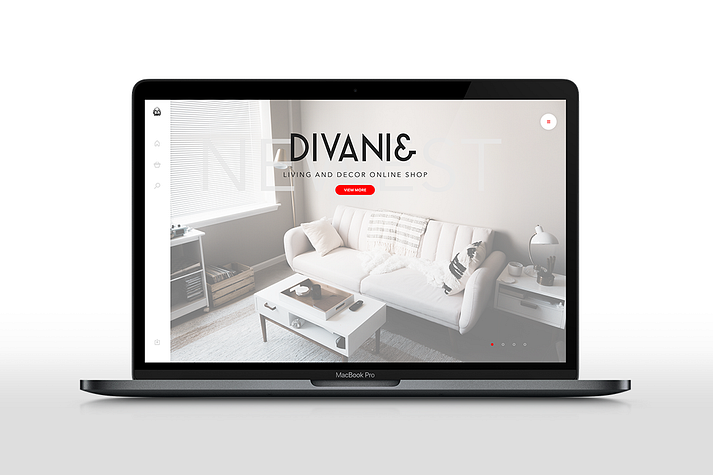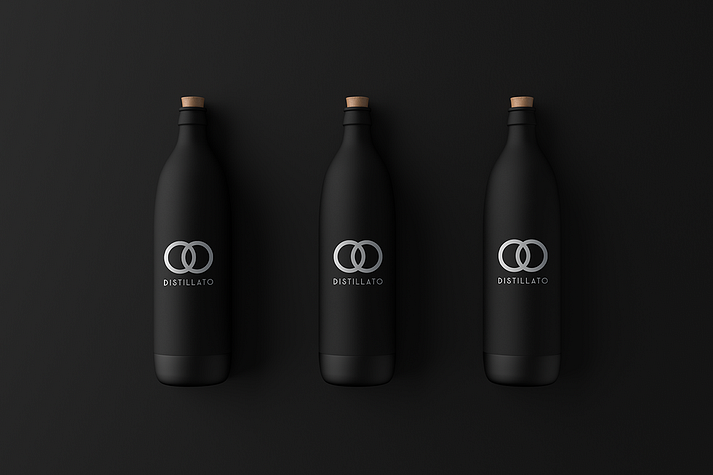
Milano Sans
Milano RetroFuristic Sans, is a retro/contemporary all caps typeface designed with sophistication and elegance.
This font features a renovated construction based on the modernist geometric sans of the first half of the past century. A case study has in fact been required to revamp those typefaces and that has resulted in a new visual approach with reinterpreted clean letterforms supplemented by sharp edges.
“Milano Sans” offers an extended characters set with more than 300 glyphs and covers several languages based on the Latin alphabet. Furthermore, the experience is enhanced with open type (OTF) support for small caps and superiors and includes some neat ligatures and alternates, as well.
Ideal for headlines, logos and any destination of use such as corporate identity, typography, posters, web design and social feeds.
• Multilanguage support
• Small Caps
• OpenType features (alternates, ligatures)